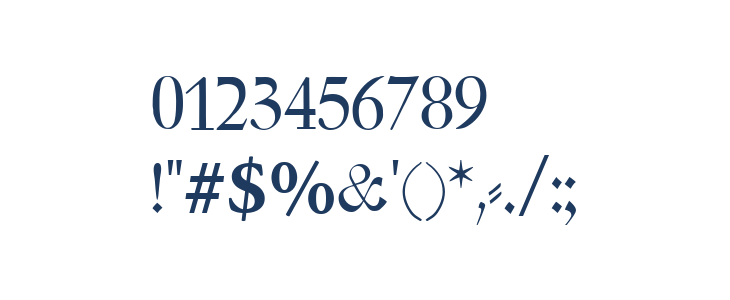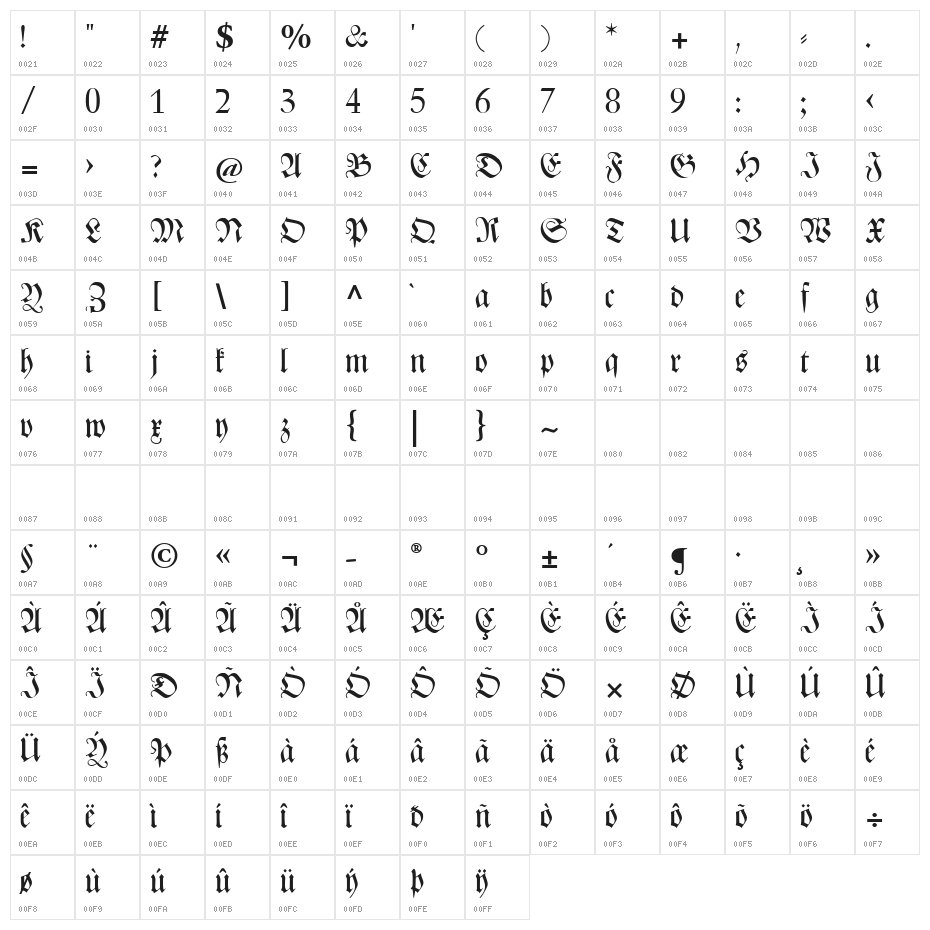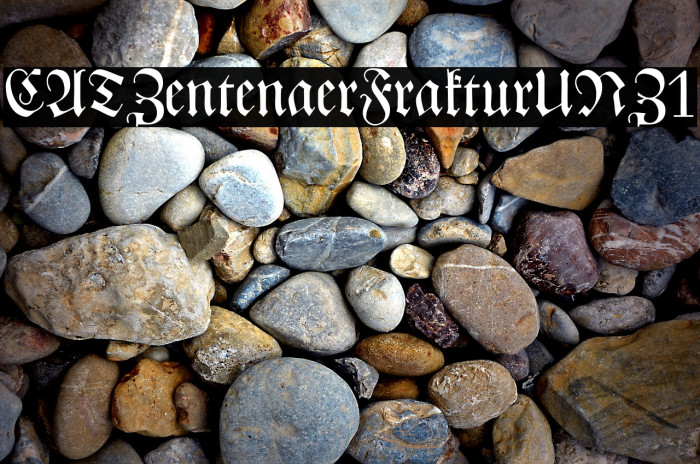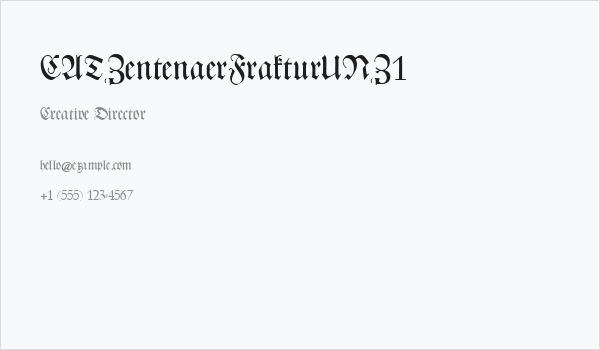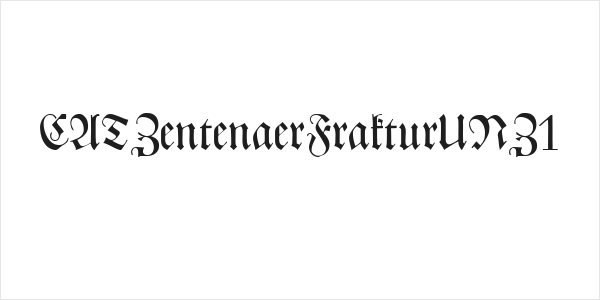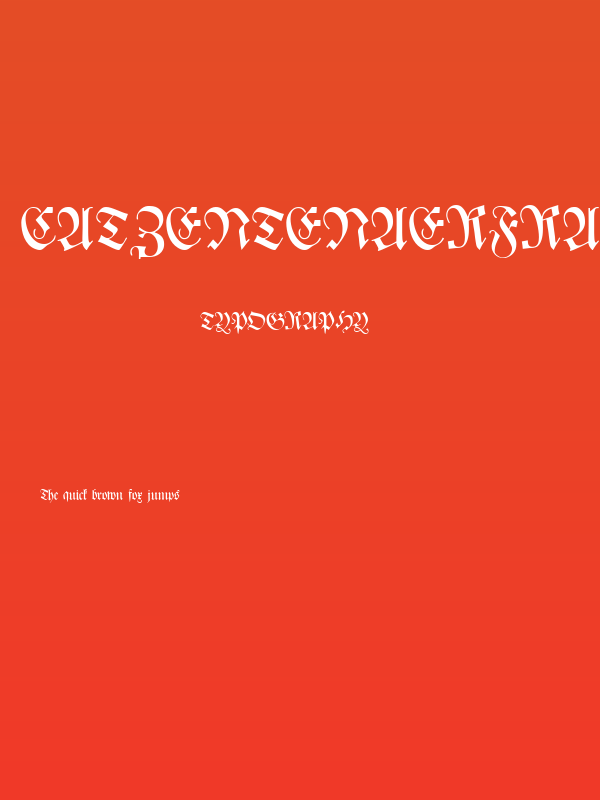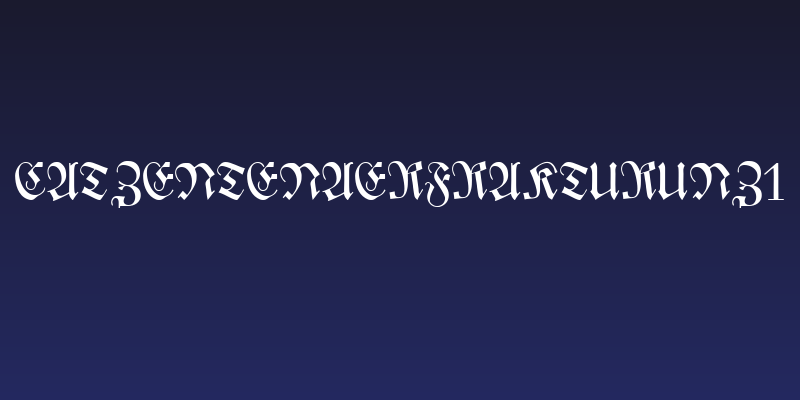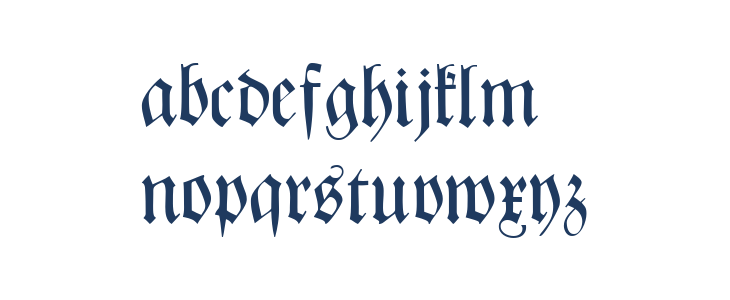
CATZentenaerFrakturUNZ1 Font
CATZentenaerFrakturUNZ1 Description
This font is a classic example of Blackletter style, characterized by its ornate and intricate design. The uppercase letters exhibit a strong, angular form with elaborate flourishes, while the lowercase letters maintain a consistent, flowing appearance. The numerals are bold and distinct, fitting seamlessly with the overall aesthetic. Special characters are crafted with the same attention to detail, enhancing the font's decorative appeal. The strokes are thick and pronounced, contributing to a high contrast between the thick and thin lines, which is typical of Blackletter fonts. This font exudes a sense of historical elegance and formality, making it suitable for projects that require a touch of vintage sophistication.
| Use Case | Logos, Certificates, Invitations |
| Proposed Projects | Ideal for certificates, invitations, logos, and any project that requires a historical or formal touch. |